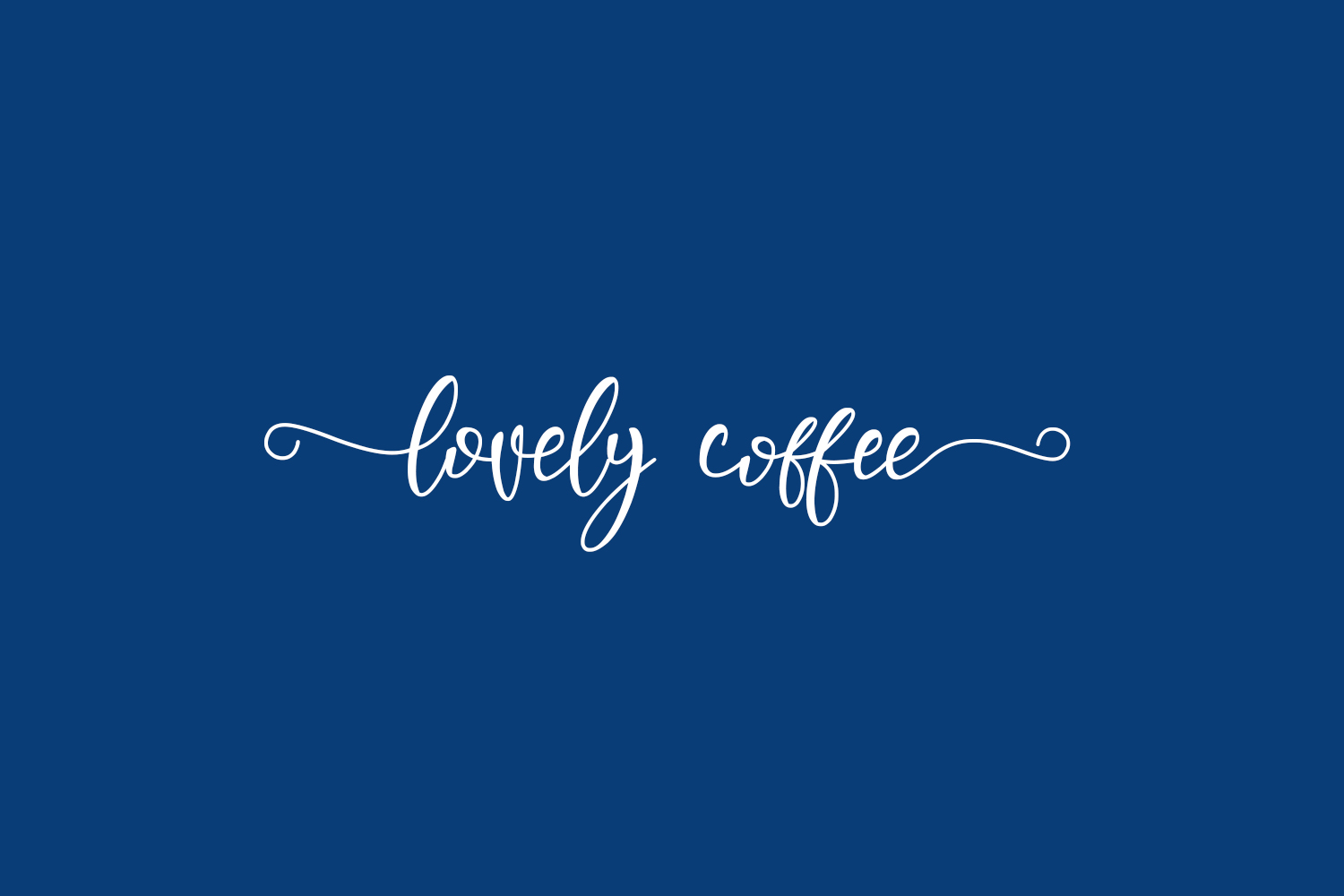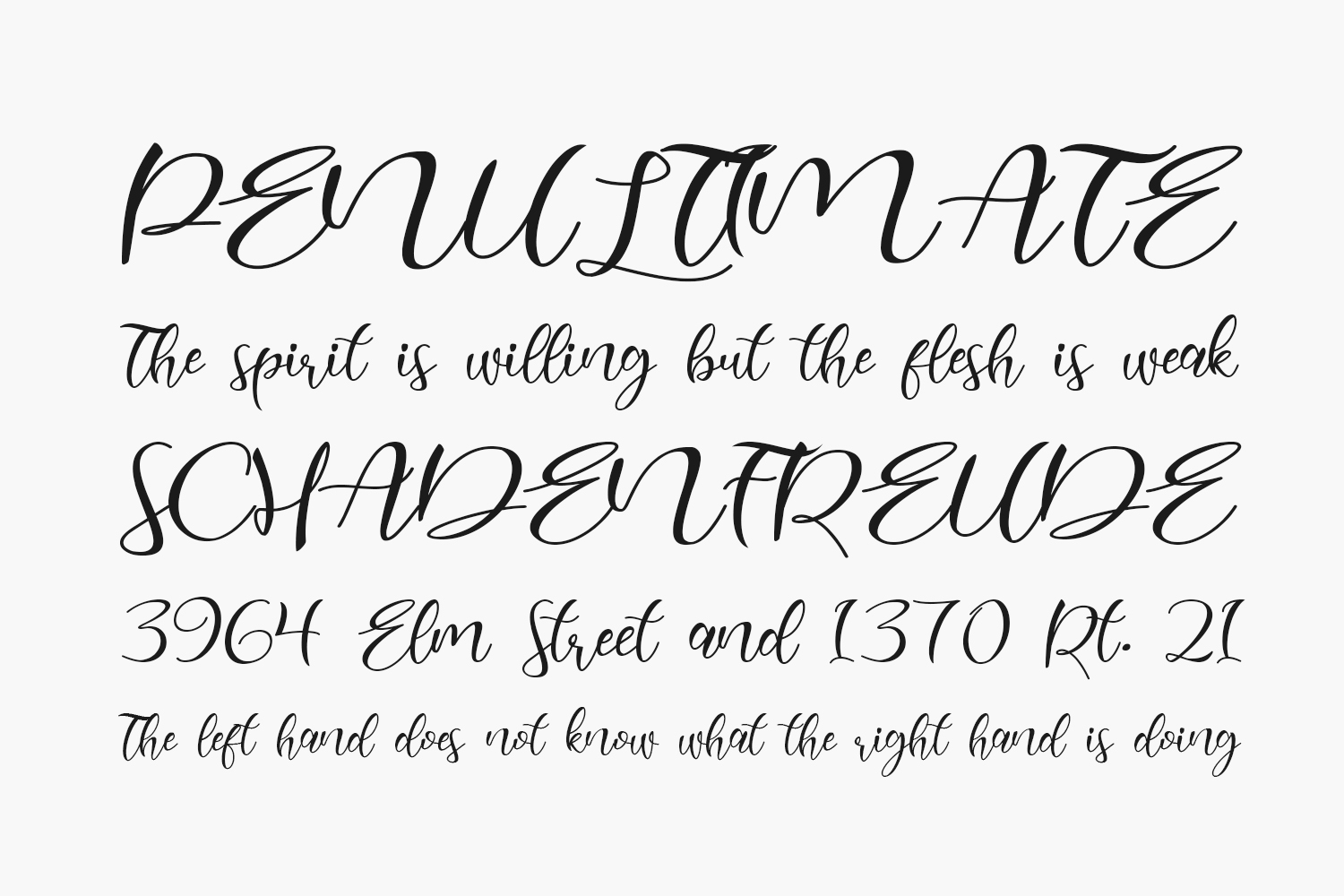
Lovely Coffee Free Font simplifies elegance into one truly outstanding handwritten font. A new font look with a relaxed feel in handwriting style, it maintains its classy calligraphic influences while feeling contemporary and fresh. Perfect for your creative projects. Please purchase the full version for commercial use.